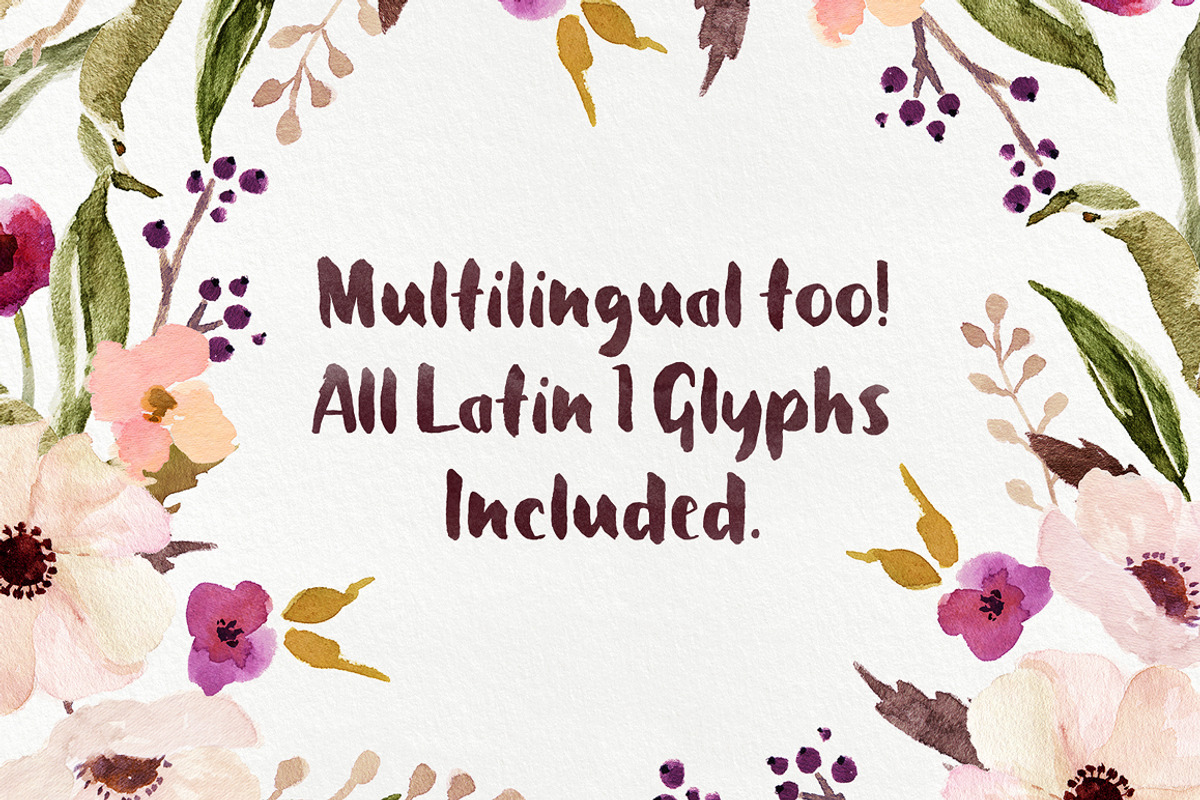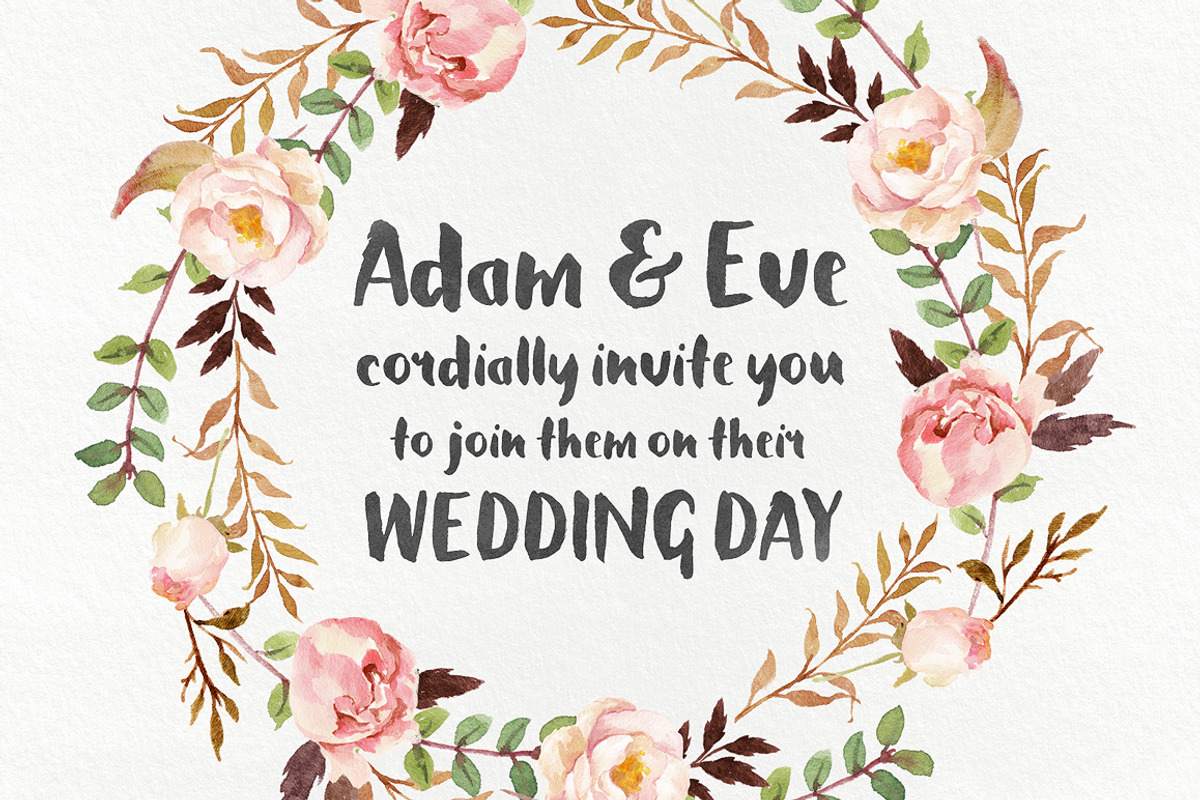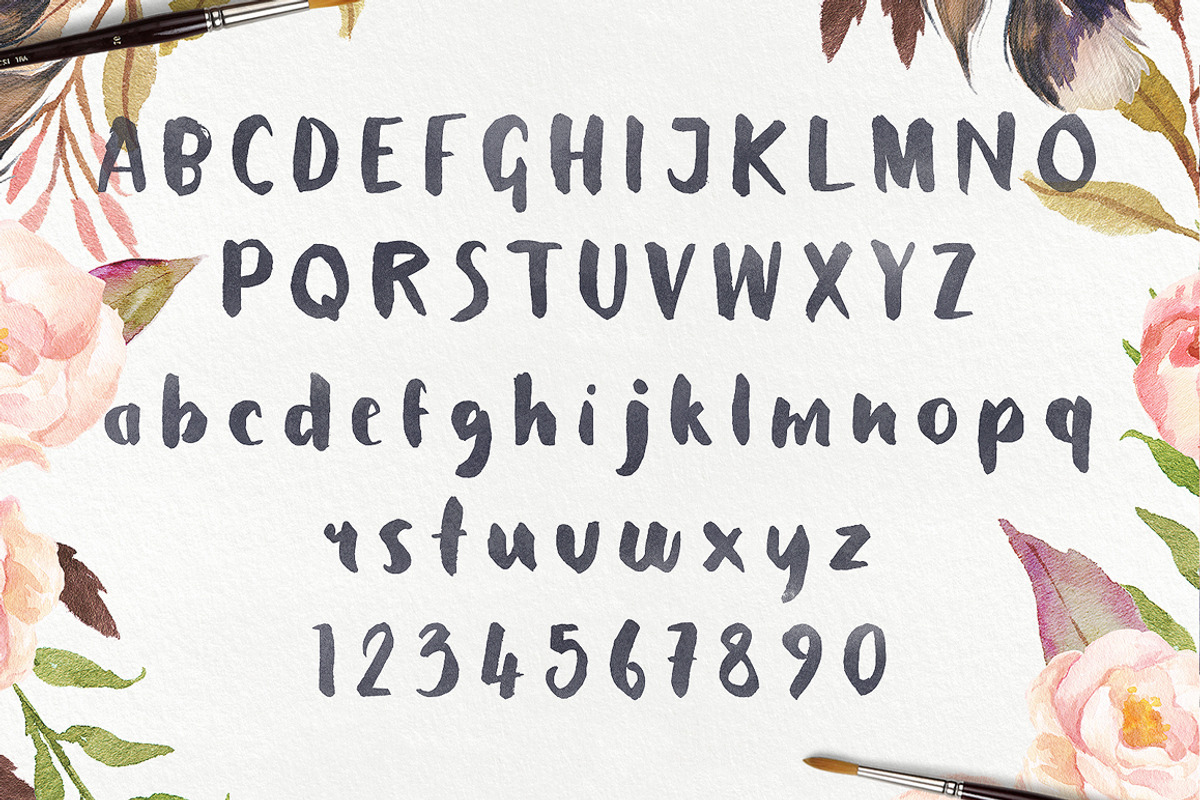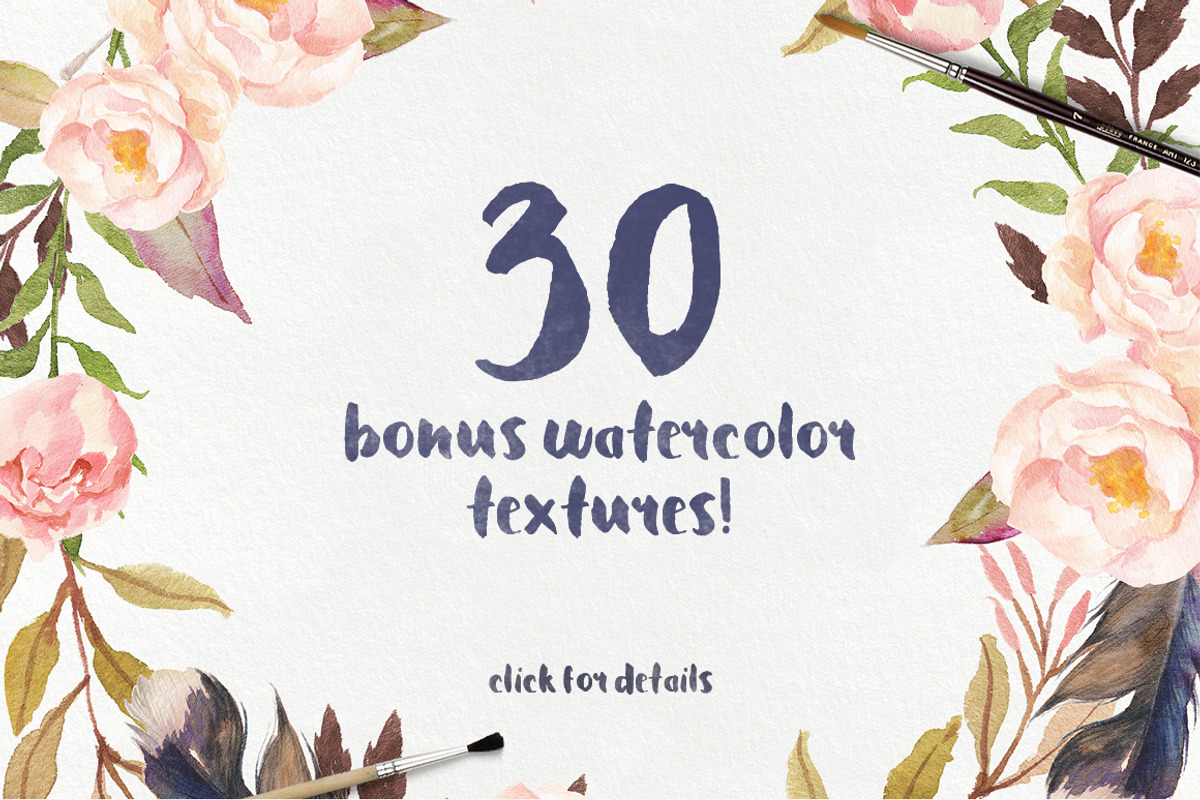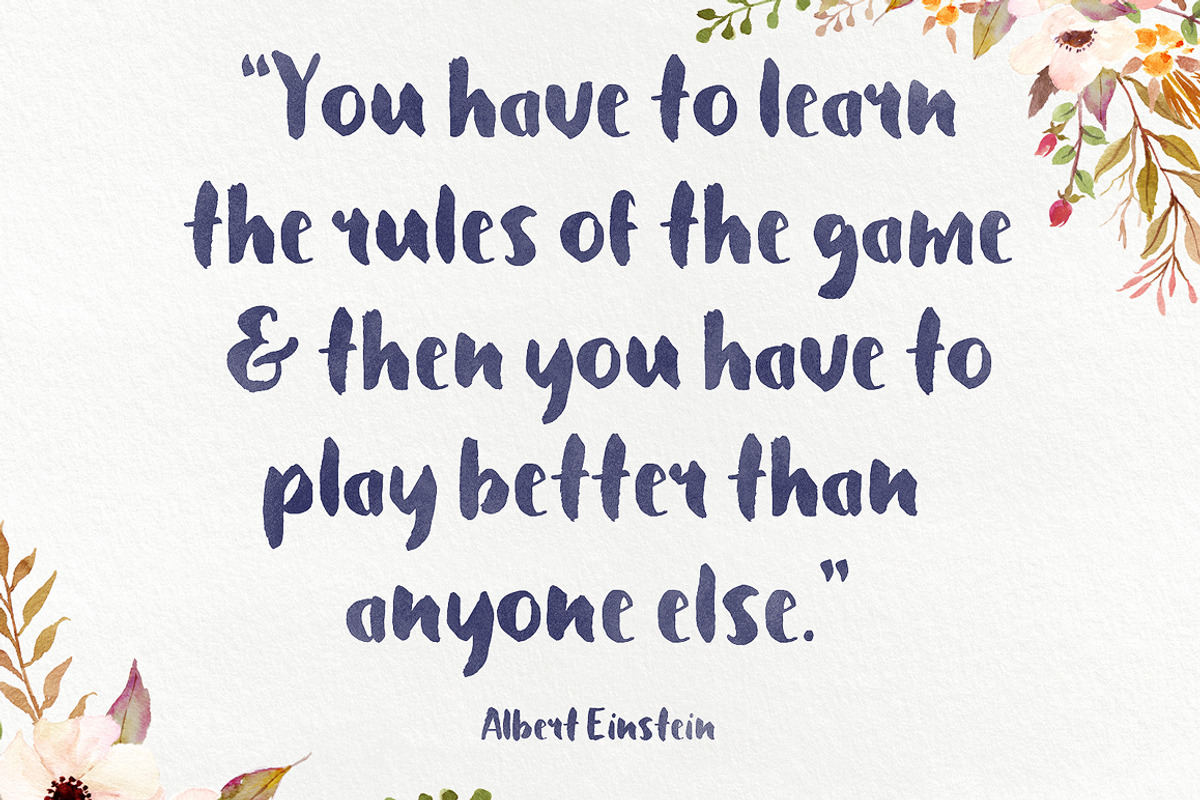
Petal - Brush Font
Petal - Brush Font by Tom Chalky is a font selected for branding, posters, packaging, typography.
Why Petal - Brush Font is worth a look
Petal - Brush Font by Tom Chalky fits naturally into Branding, posters, packaging, typography.